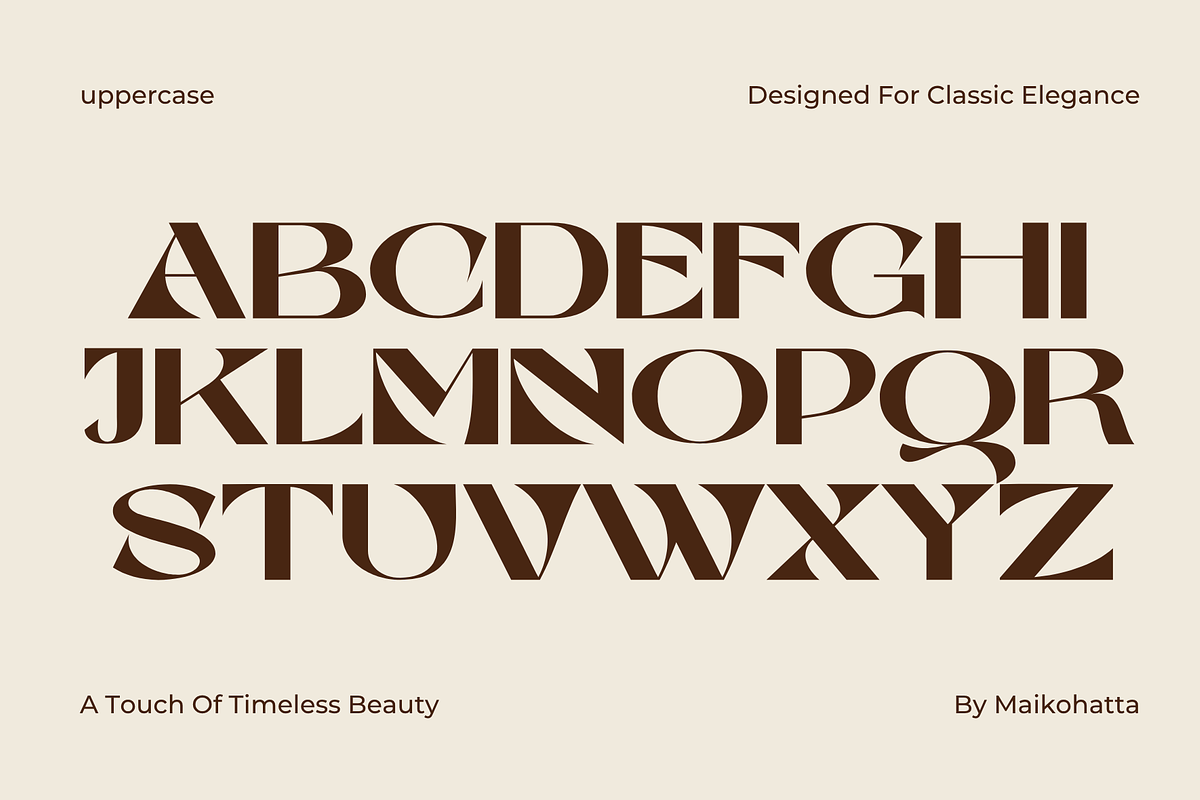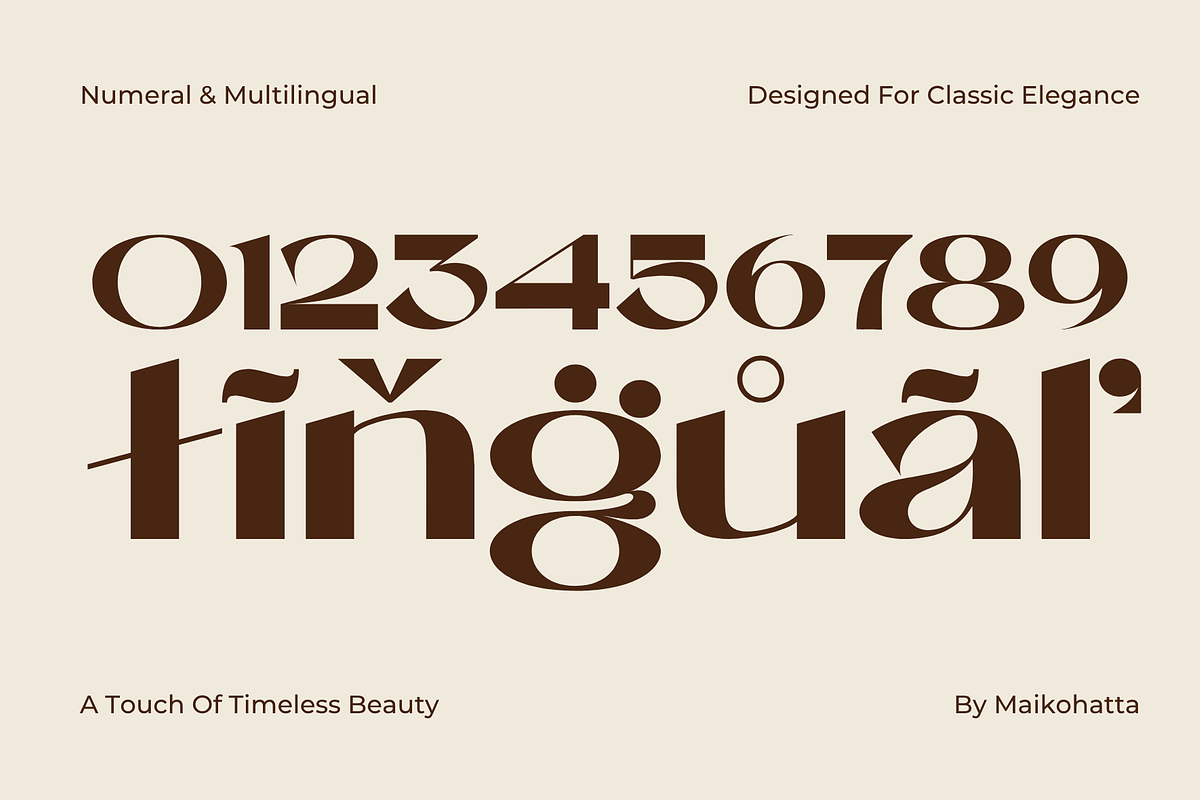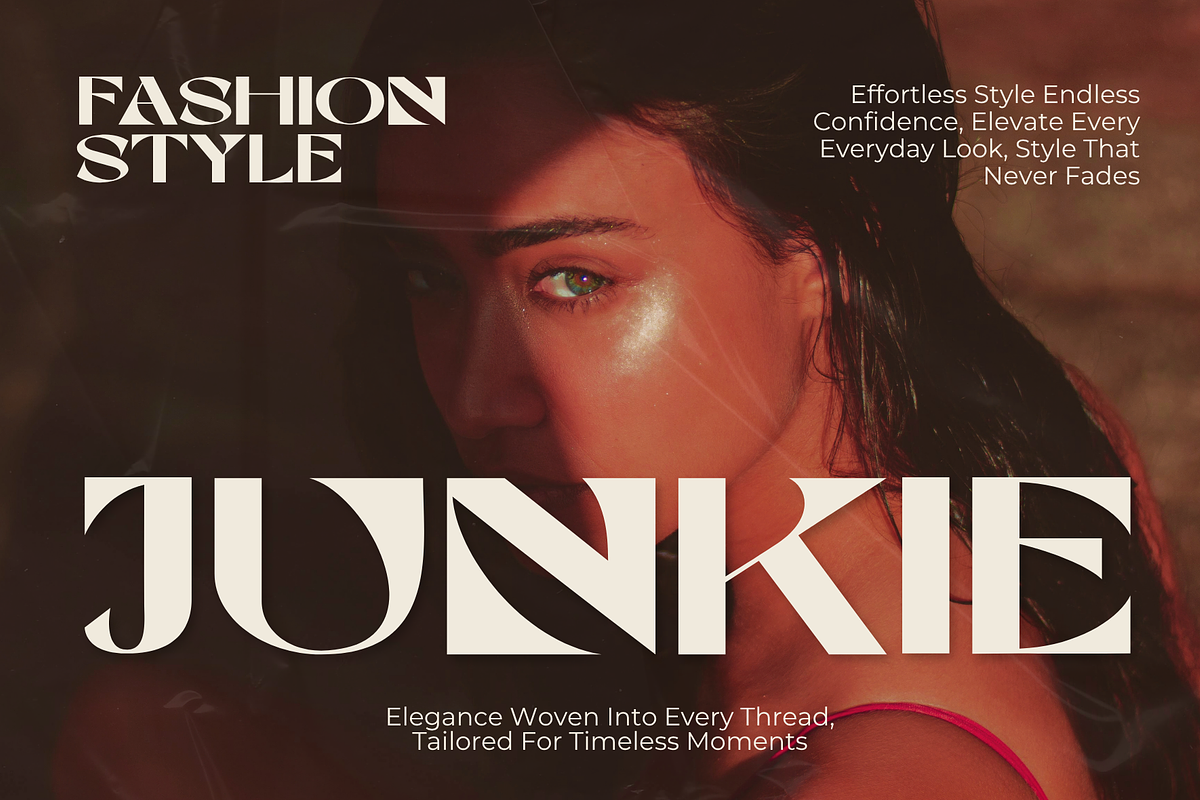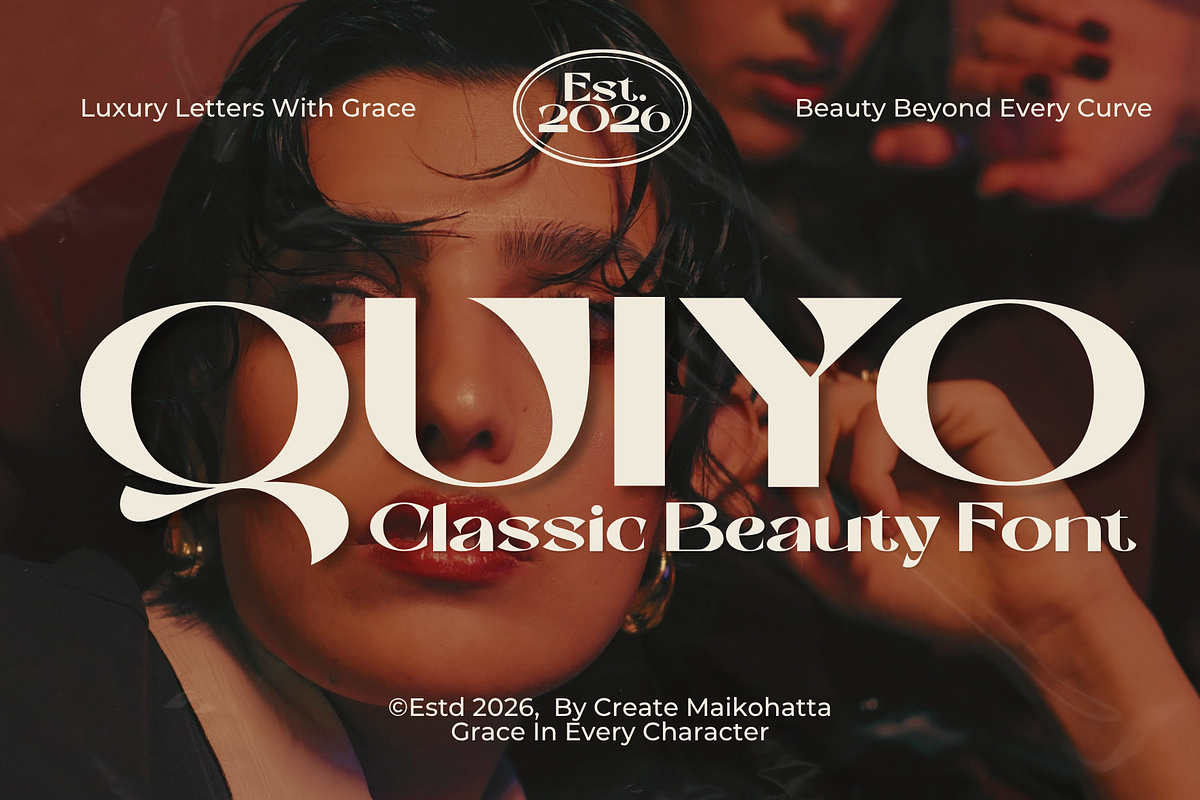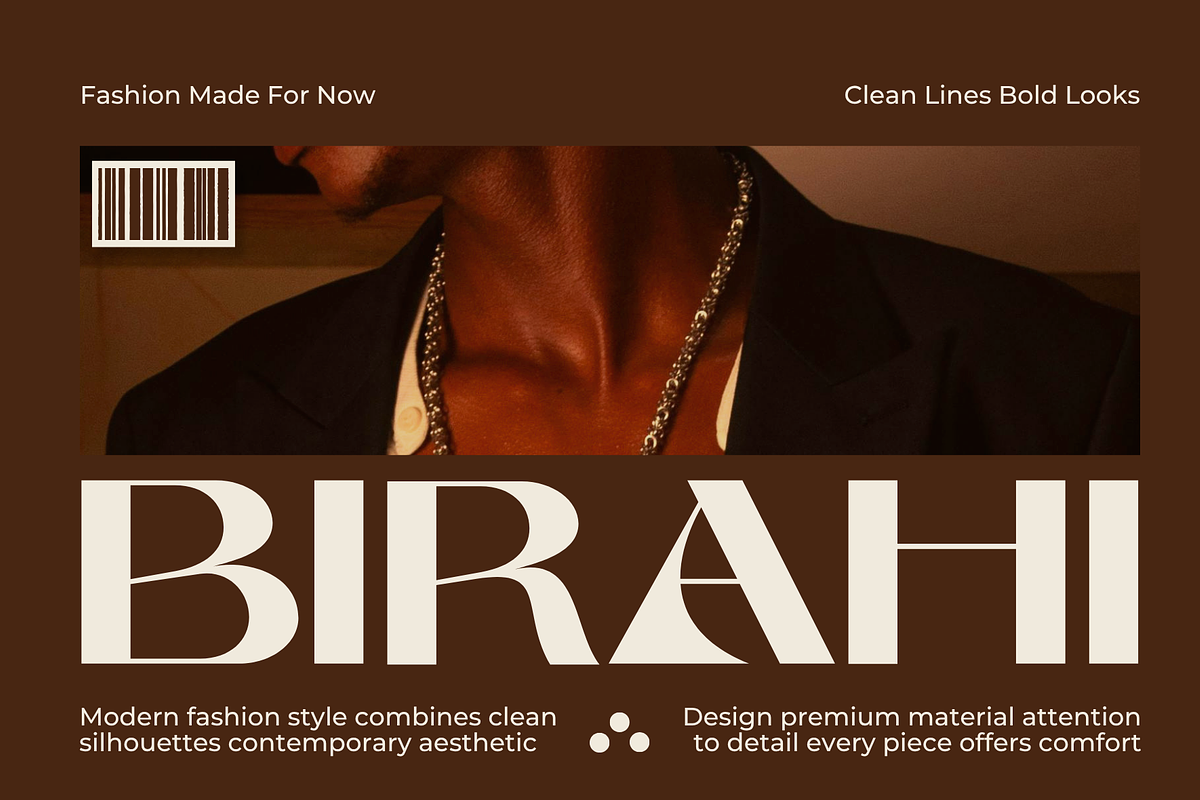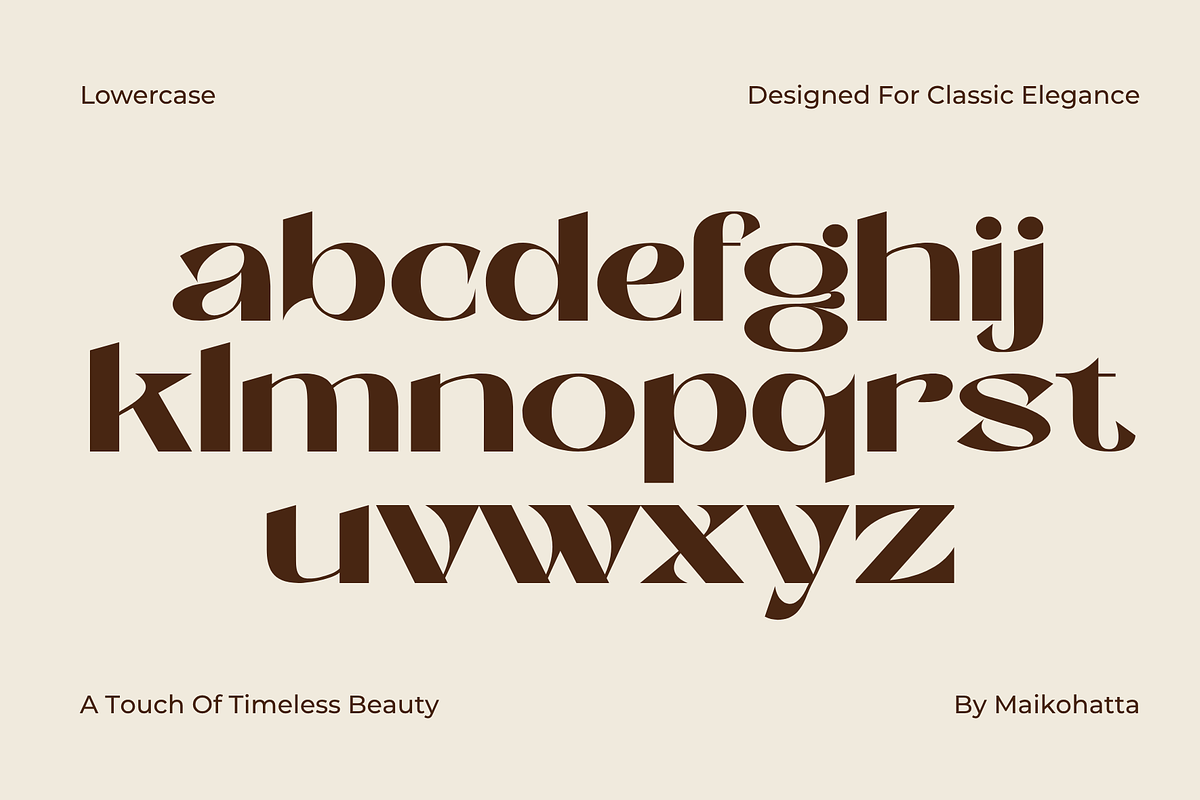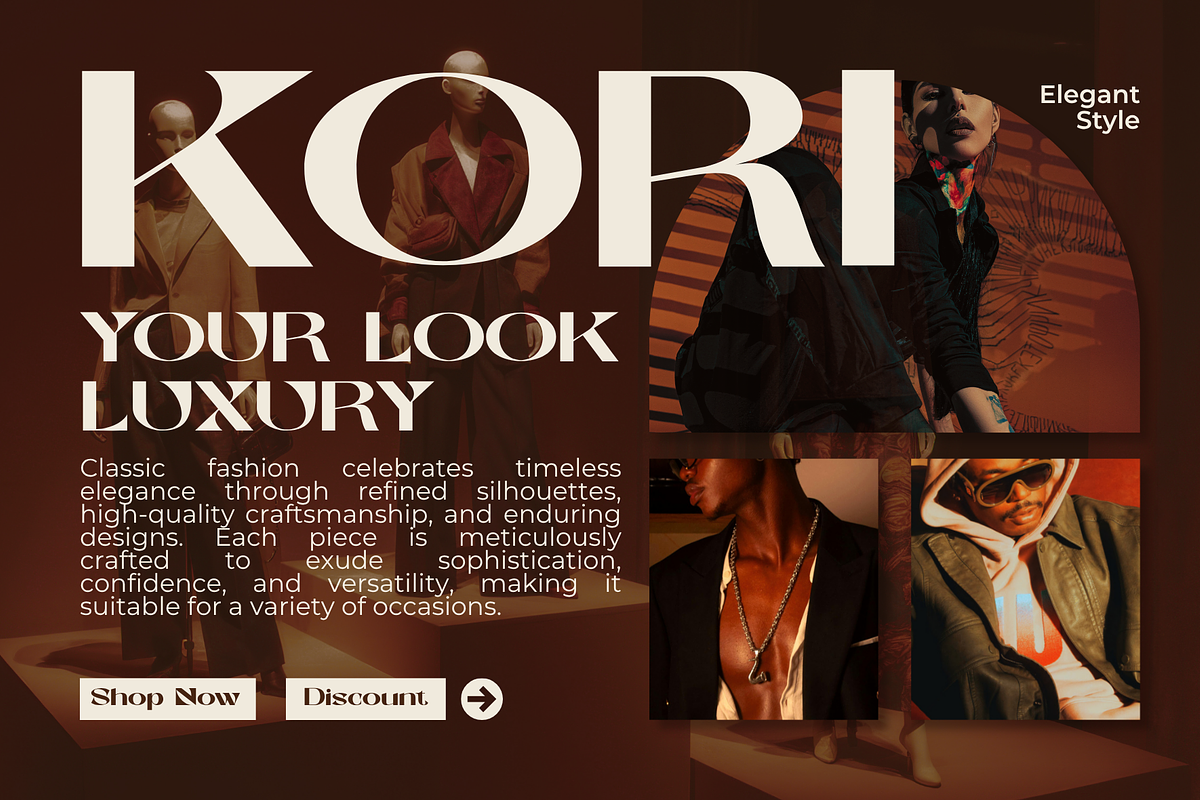
Quiyo - Classic Beauty Font
Quiyo - Classic Beauty Font is a refined display sans serif typeface that blends timeless elegance with modern sophistication. Featuring graceful high-contrast strokes, sculpted sans serifs, and beautifully balanced proportions, Quiyo is designed to create a luxurious visual impact in every project.
Inspired by the world of fashion editorials, premium beauty brands, and classic typography, Quiyo delivers a distinctive presence that elevates logos, magazine headlines, cosmetic packaging, wedding stationery, and upscale branding. Its elegant letterforms bring a sense of confidence, femininity, and exclusivity while maintaining exceptional readability at large display sizes.
* Uppercase
* Lowercase
* Multilingual
* Ligature